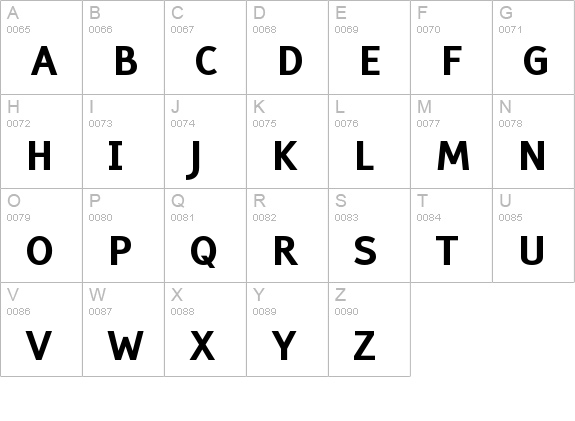
Tiresias Signfont Font Details
Introducing Tiresias Signfont, a remarkable font that effortlessly bridges the gap between accessibility and aesthetics. Crafted with precision and care, this typeface is specifically designed to cater to individuals with visual impairments, ensuring that every character is easily distinguishable and legible. Tiresias Signfont is not only a practical choice, but a visually captivating one as well. Its clean, modern lines and balanced proportions make it a versatile font that can be used in a variety of design projects, from signage to print materials. What sets Tiresias Signfont apart is its commitment to inclusivity. This font has been meticulously crafted to adhere to the strict guidelines of accessibility standards, making it an invaluable tool for designers and individuals alike who prioritize equal access to information. And the best part? Tiresias Signfont is absolutely free to download at FontsMarket.com. You can freely access this incredible font and enhance your designs with its unique blend of functionality and style. So why wait? Grab this font today and embark on a journey of inclusive design, where accessibility meets creativity seamlessly.